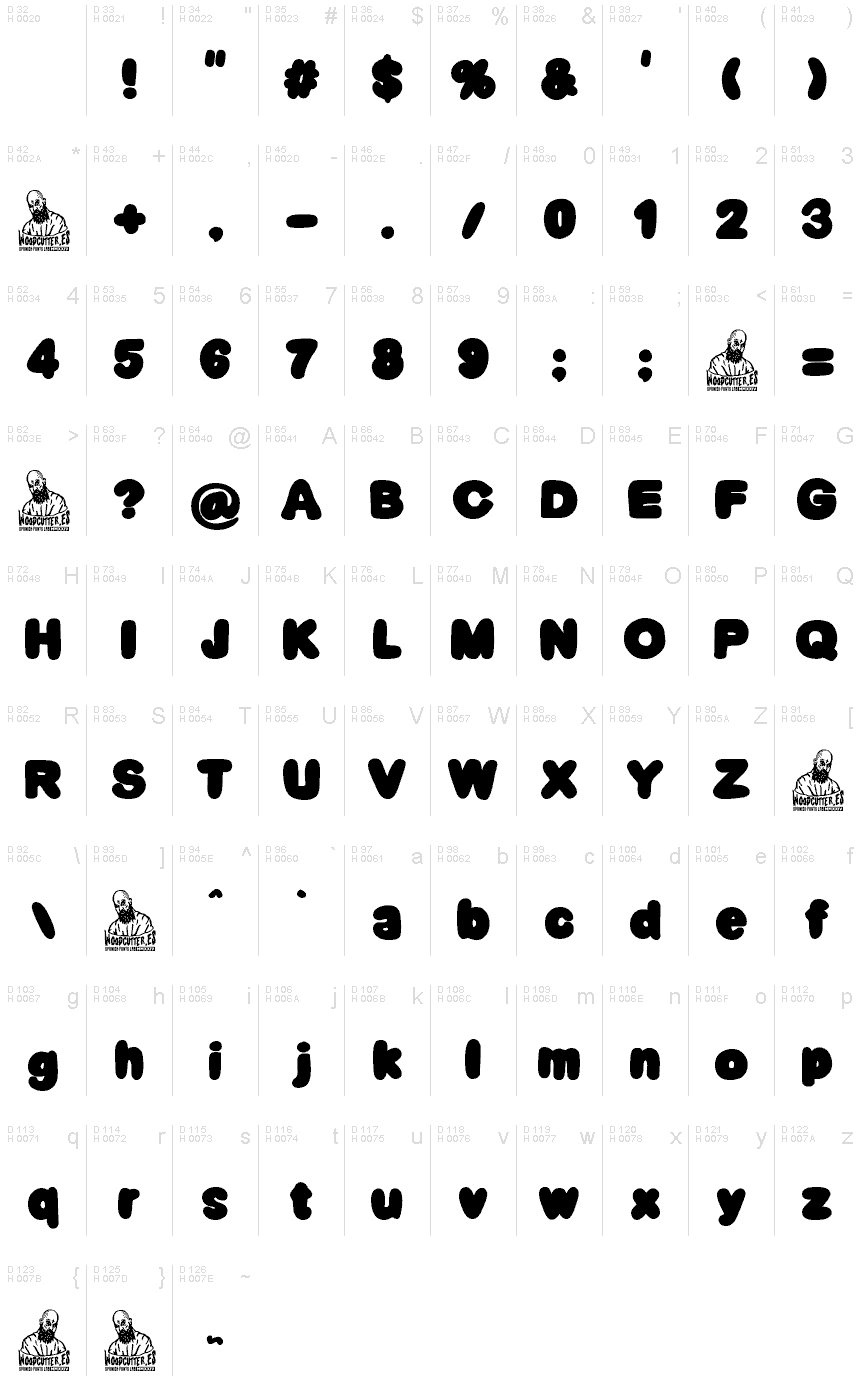
Liberty City
Liberty City font is a retro, bold, and friendly display font designed by Woodcutter. Its rounded design is approachable with a relaxed vibe and a casual feel. Vintage-inspired like many of its kinds, the font brings back memories of the ’60s or ’70s eras with its unique lettering style.
From online movie posters to t-shirt designs, children’s drawings to football league logos, this free display font is perfect for all. Try it in titles, headlines, banners, restaurant menus; anywhere you need that retro gorgeous look with soft corners.